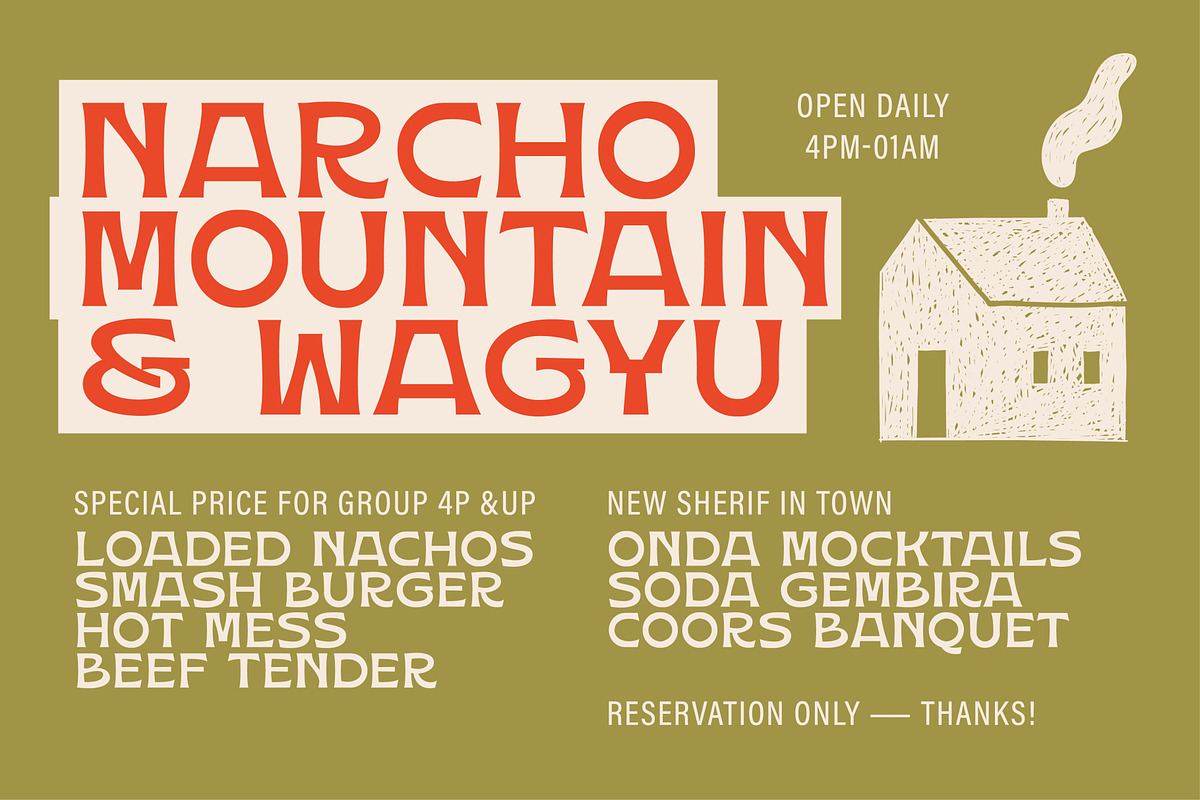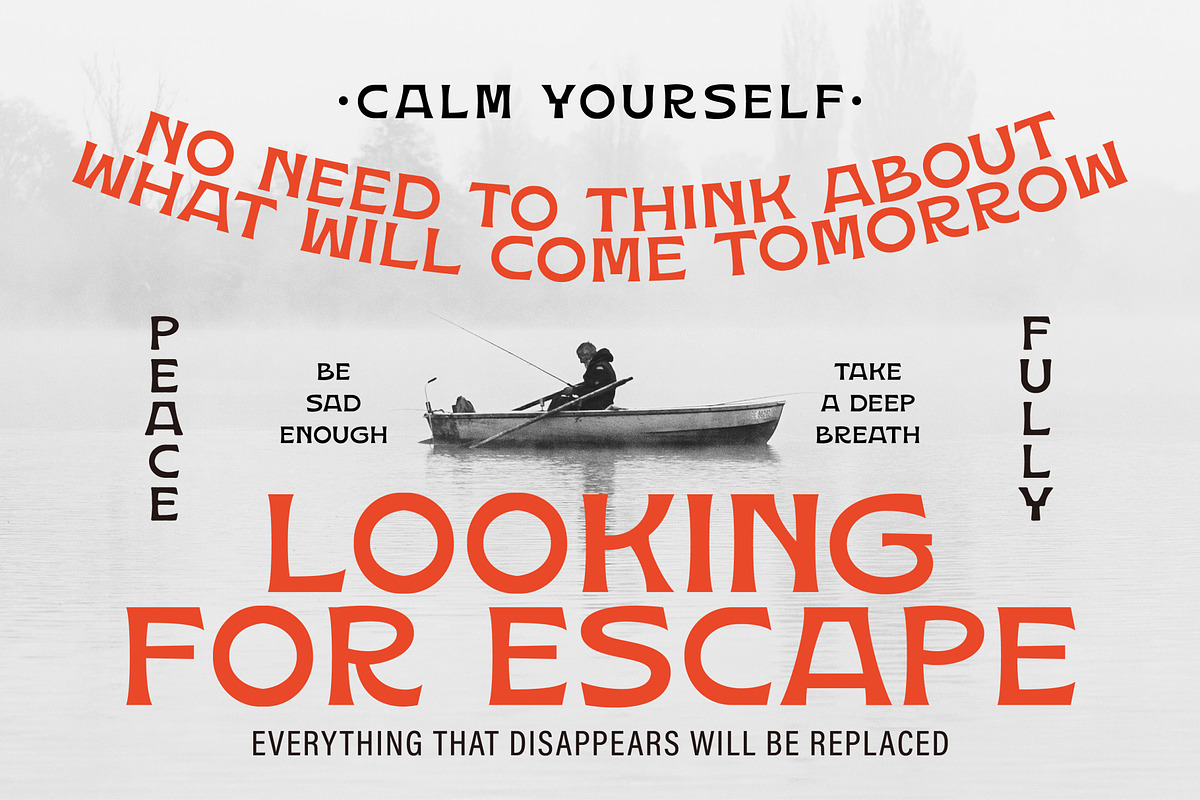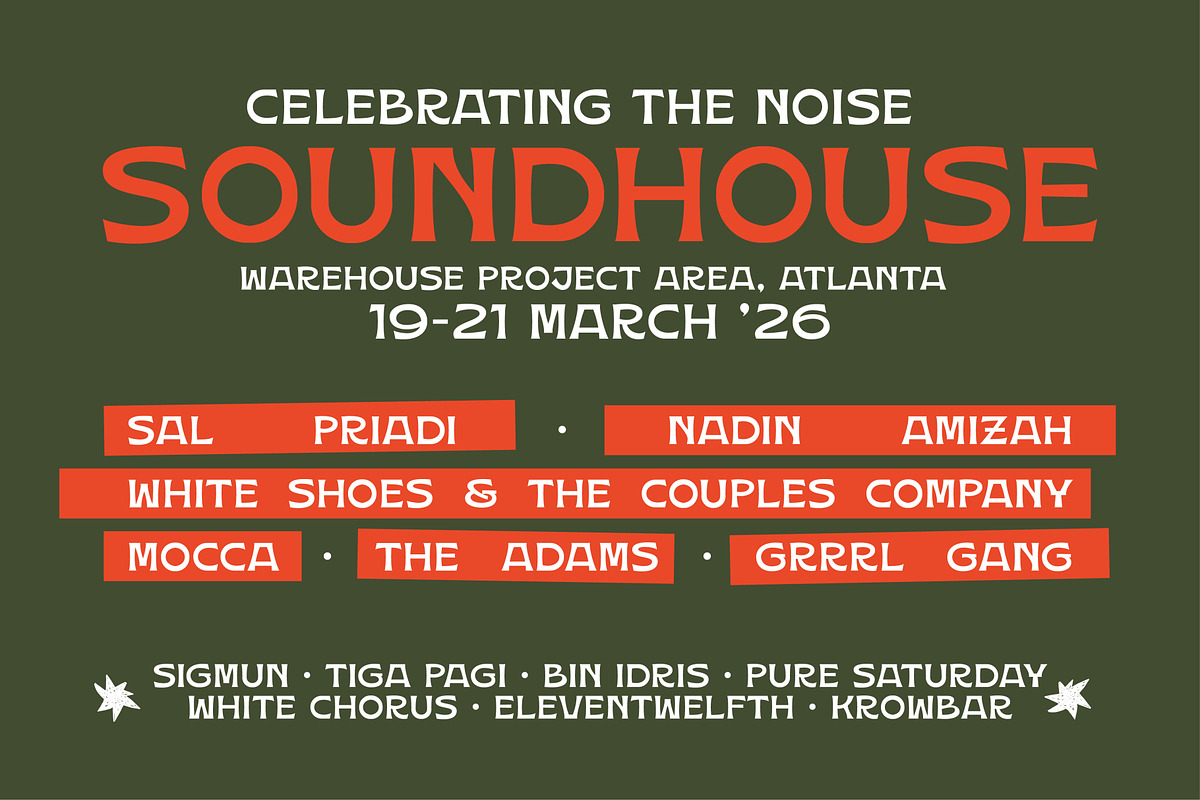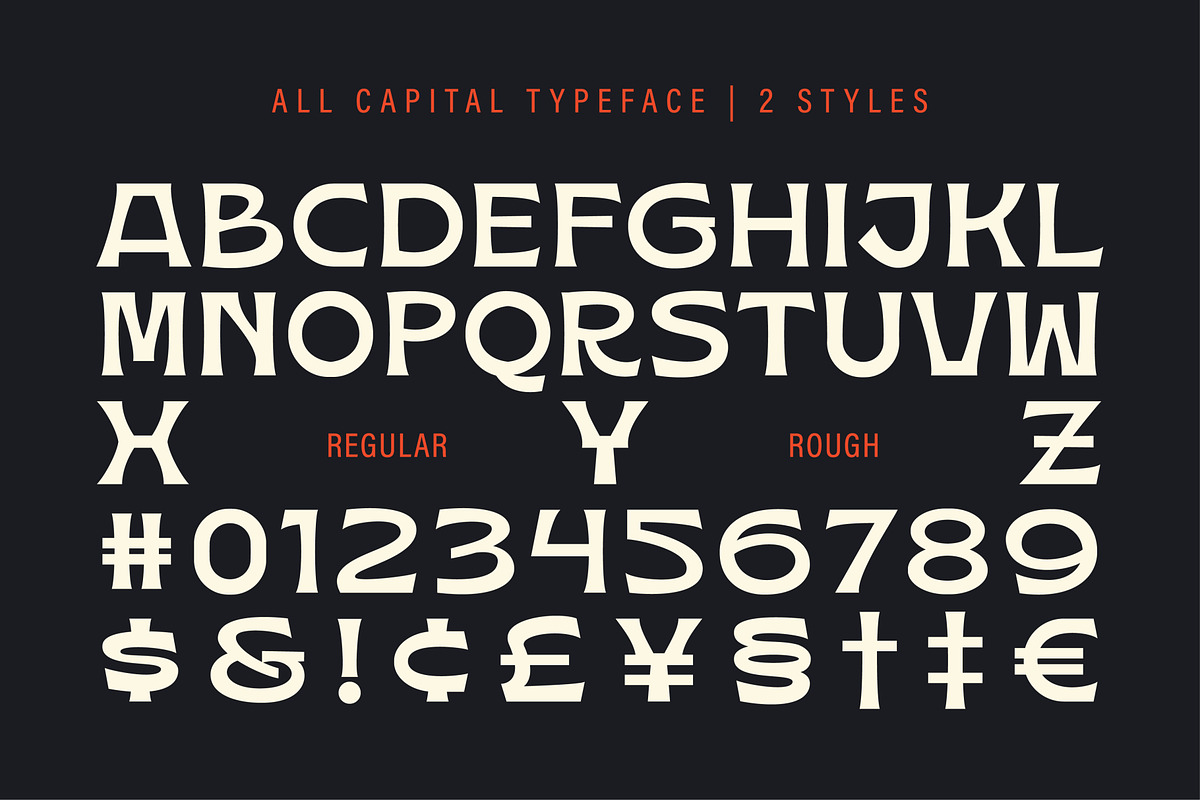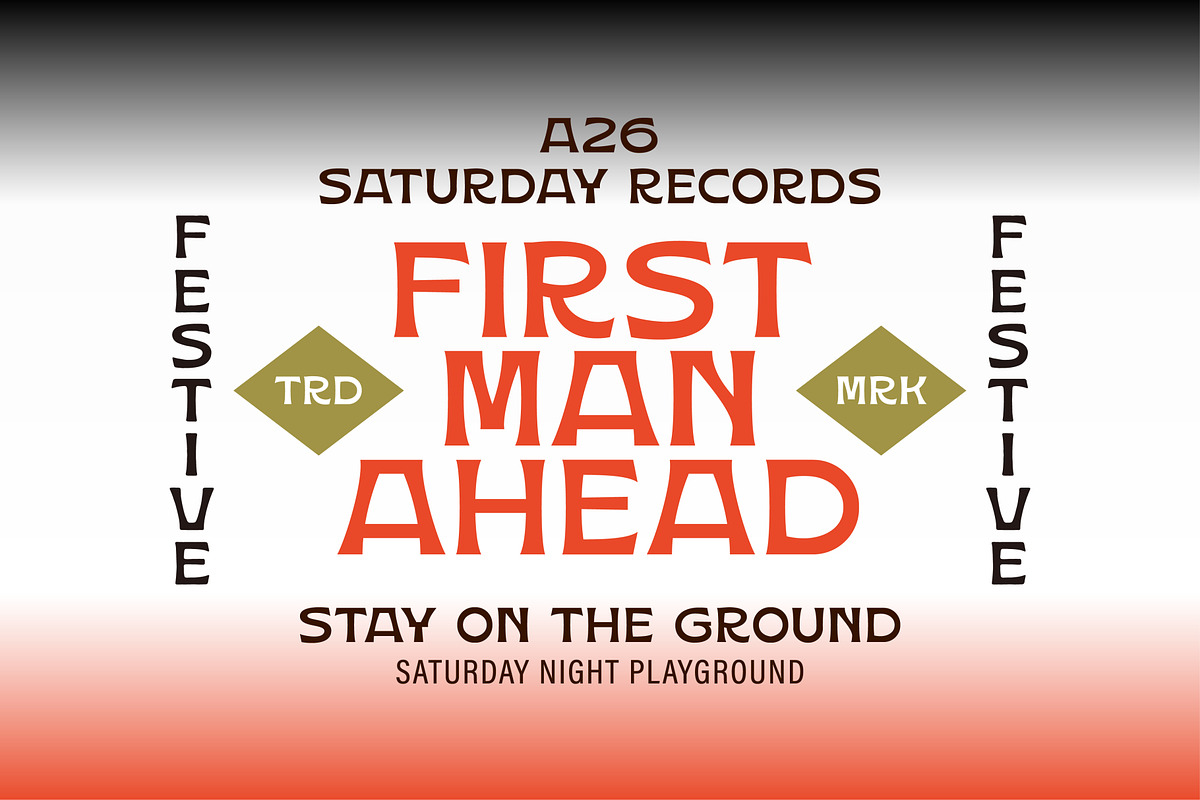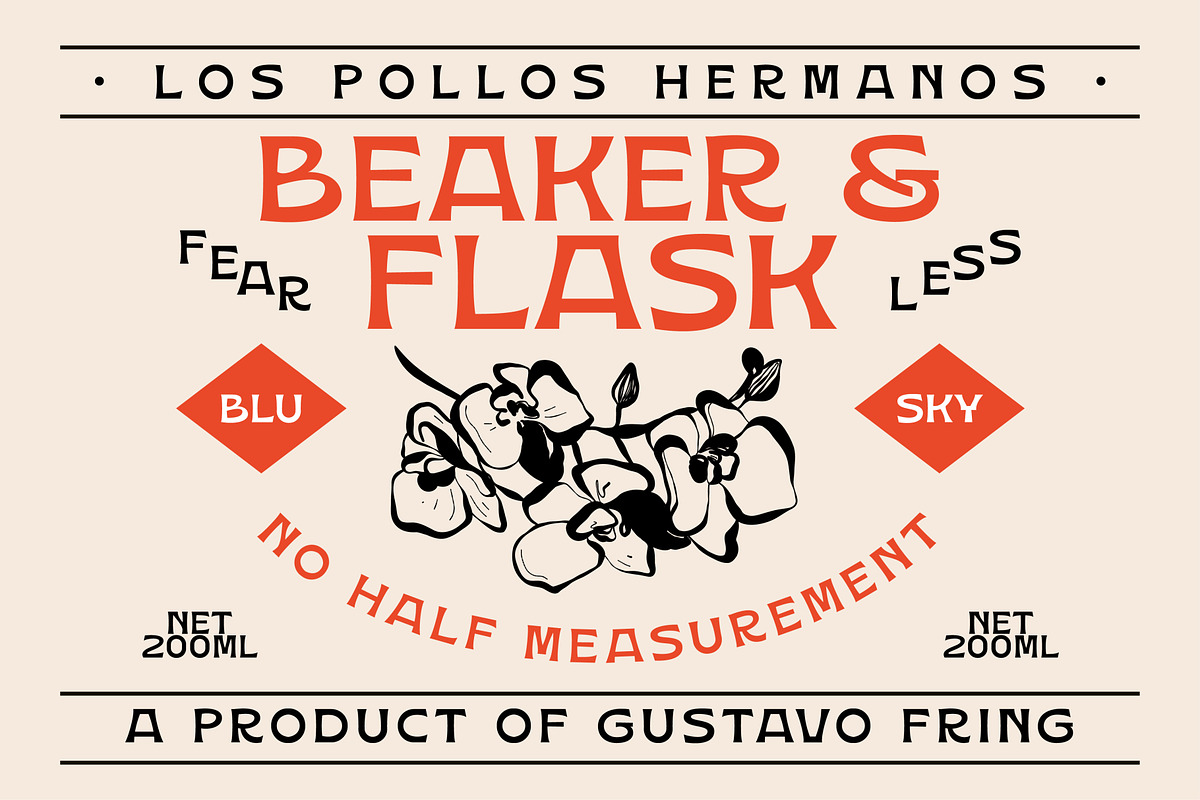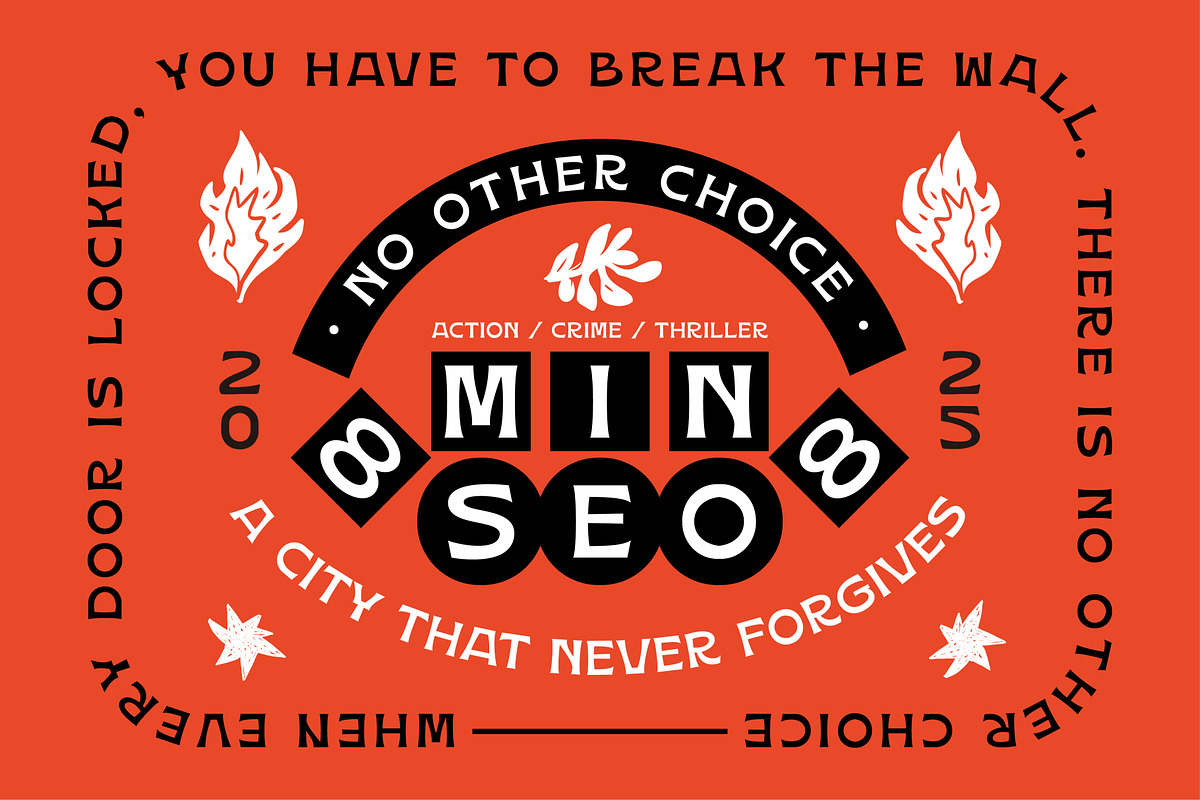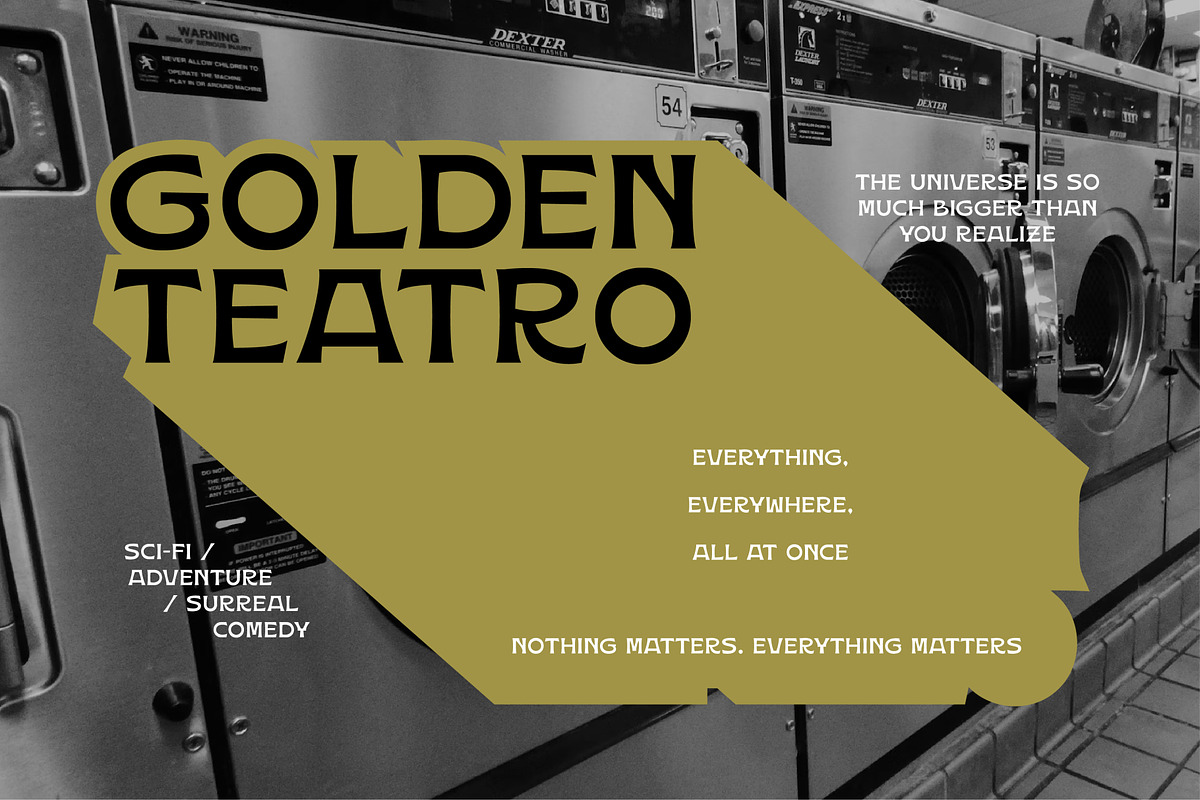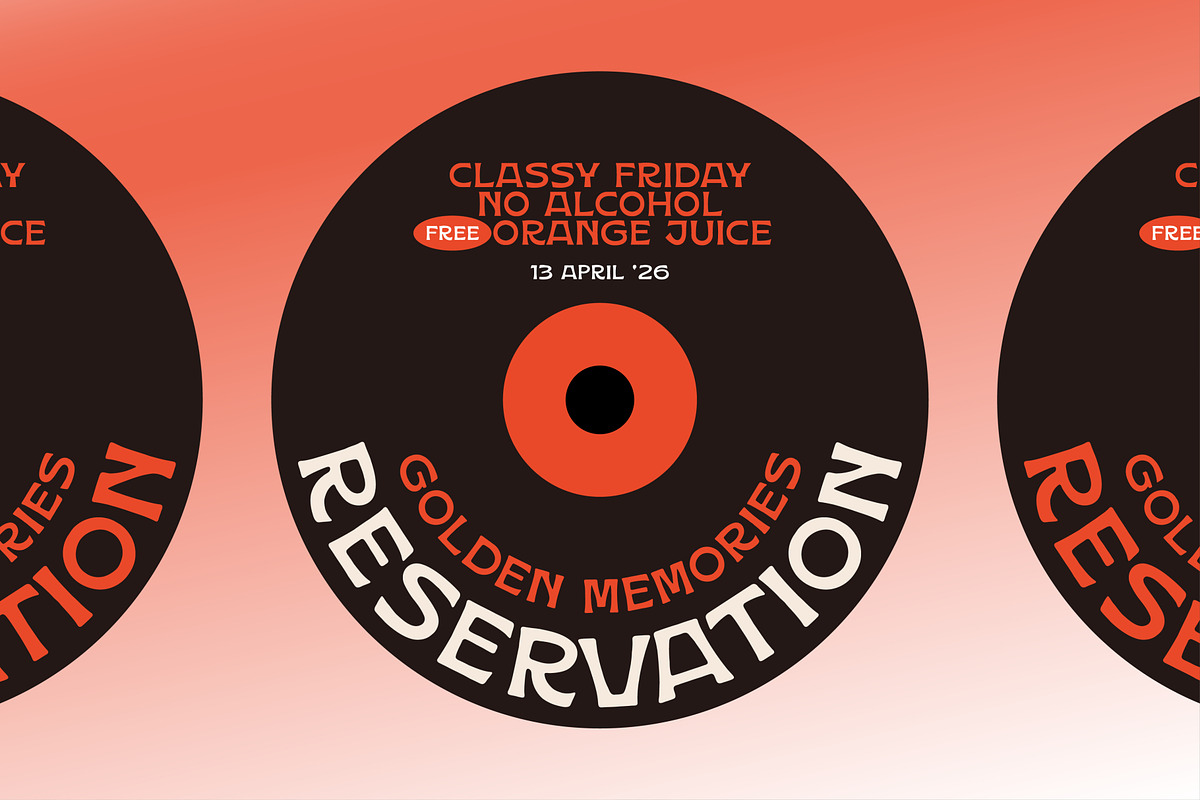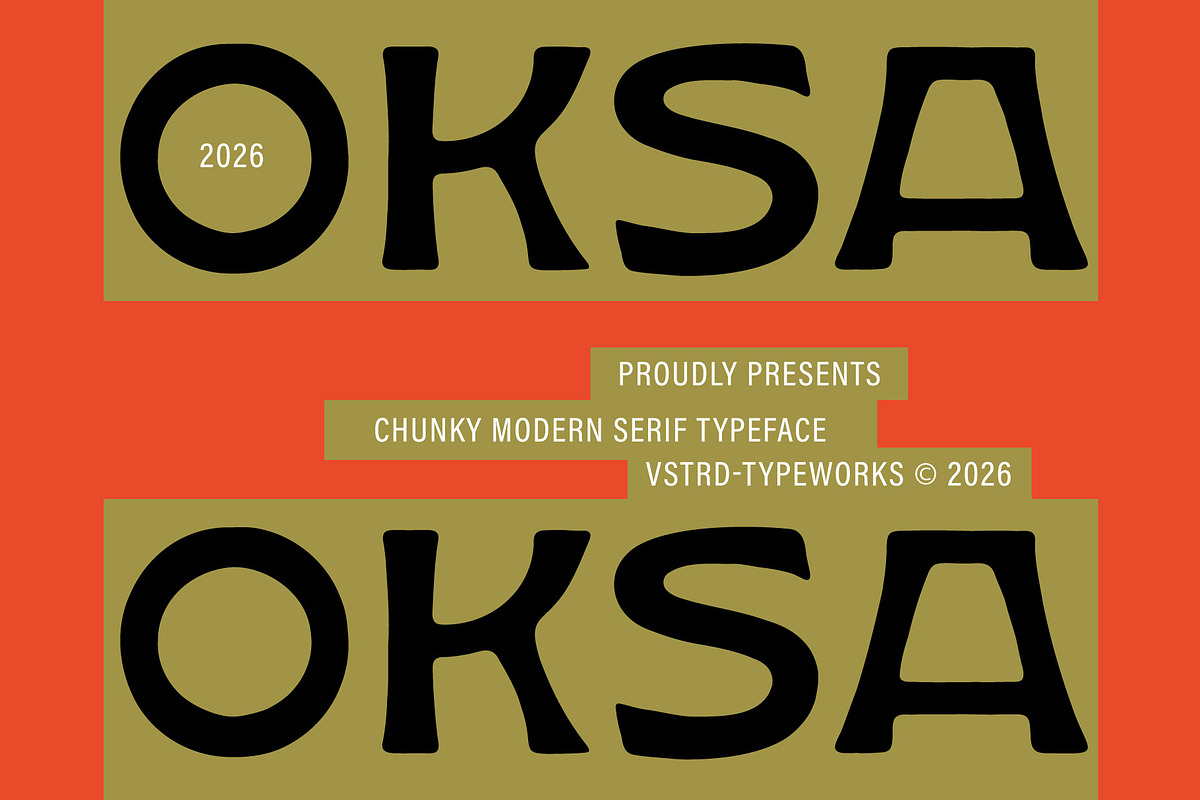
Oksa - Chunky Modern Serif
Meet Oksa – Chunky Modern Serif, a bold modern typeface built to make a statement. With its thick curves, playful structure, and confident presence, Oksa delivers eye-catching impact while staying clean and versatile. Perfect for posters, branding, packaging, headlines, social media, and editorial layouts, this chunky Modern serif brings warmth and personality to every design. It’s strong without being rigid, modern without losing character . Making it ideal for creatives who want their message to stand out loud and clear. Make it bold. Make it memorable. Make it Oksa.
- All Caps Uppercase & Lowercase
- Regular and Rough